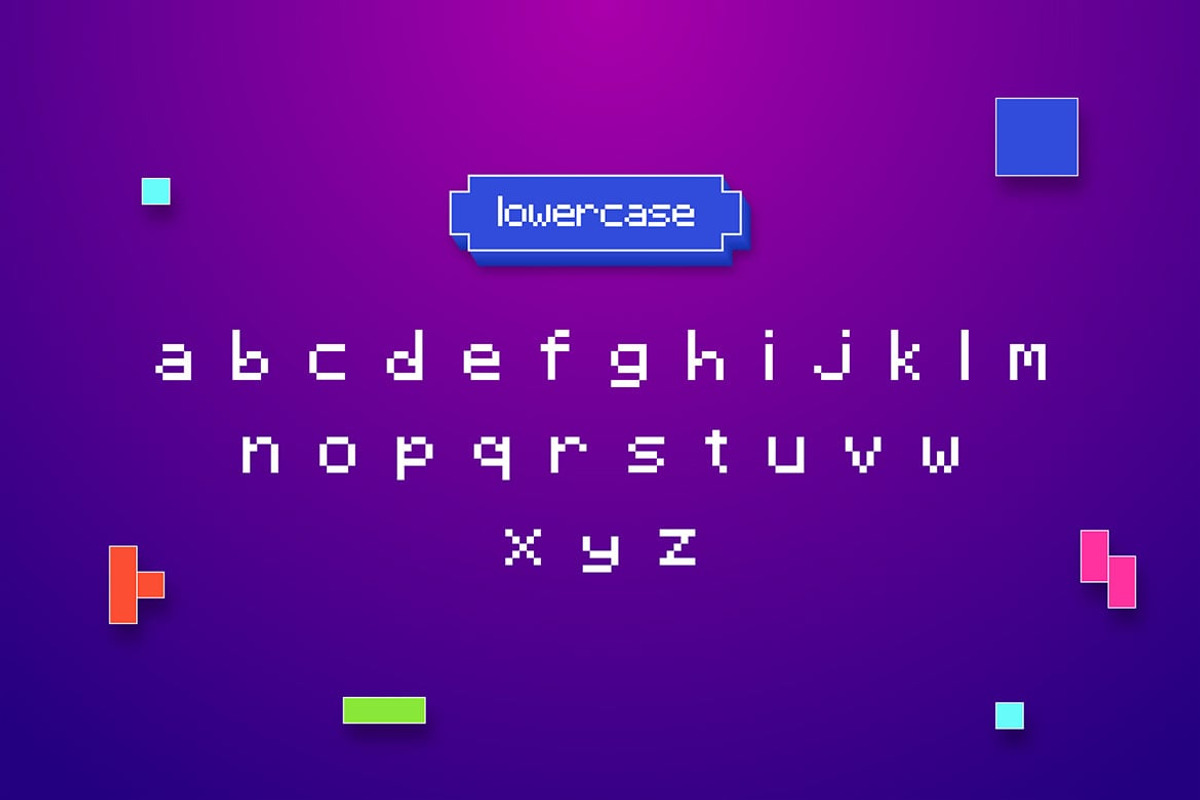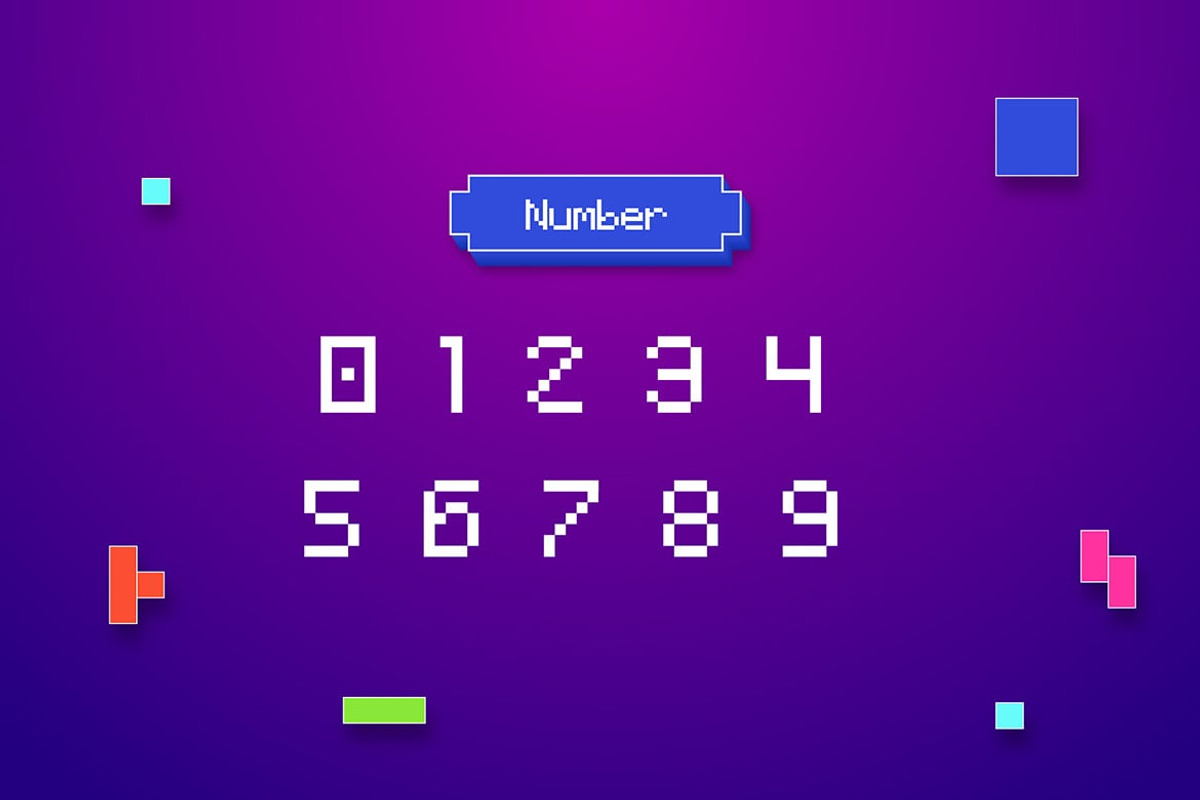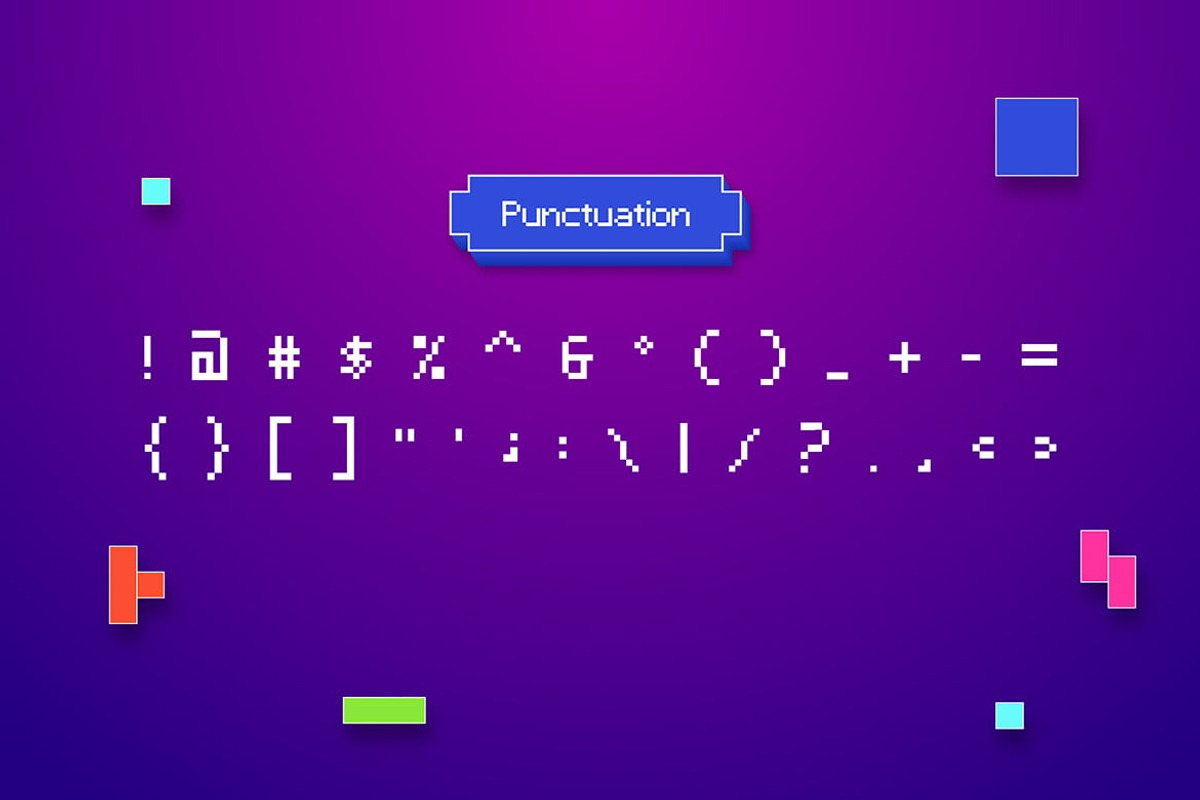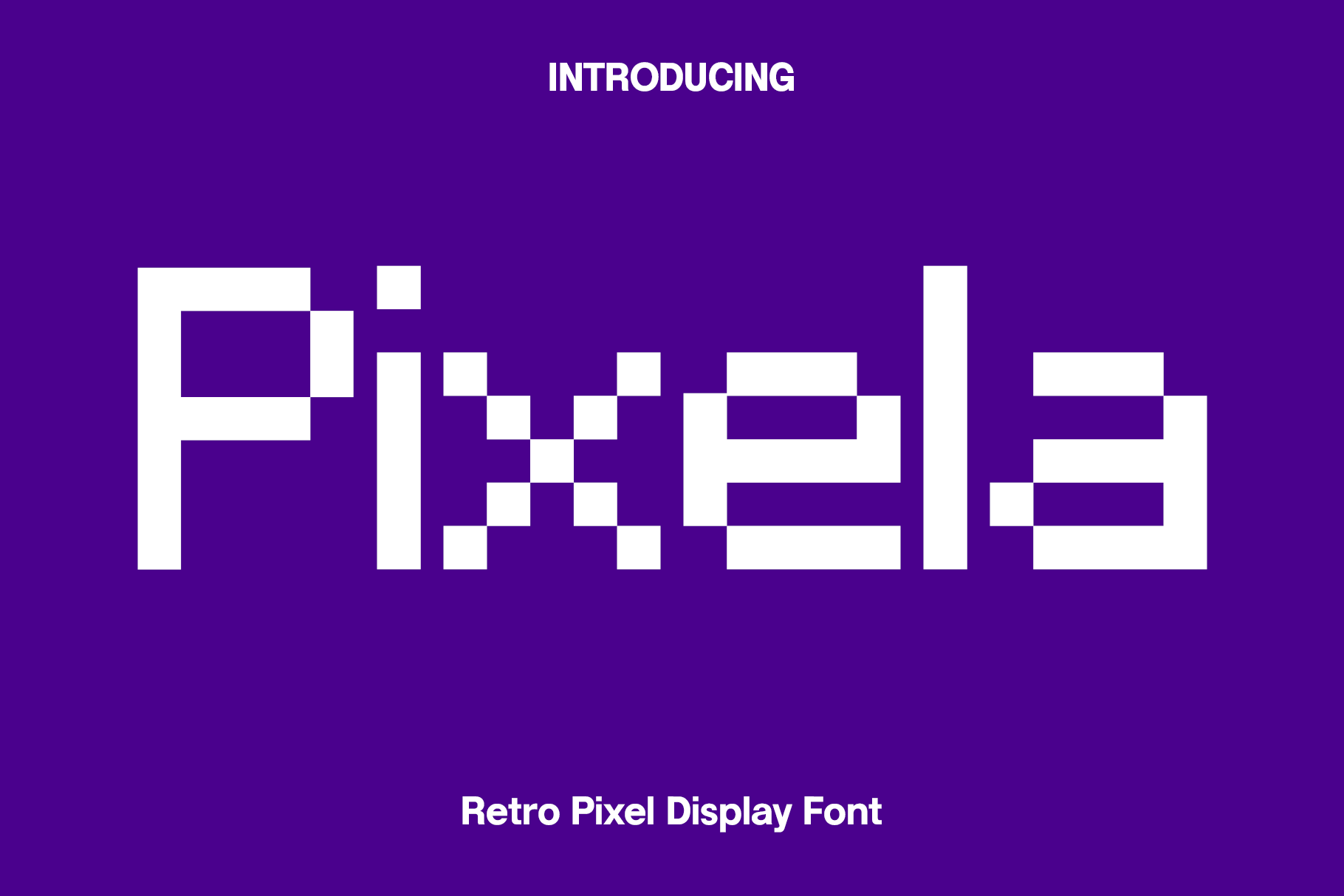
Pixela - Retro Pixel Display Font
Pixela – Retro Pixel Display Font
Pixela is a retro pixel display font inspired by the golden era of arcade games, classic consoles, and 8-bit digital graphics. Designed with crisp pixel-perfect letterforms, Pixela captures the nostalgic charm of vintage gaming while offering the clarity and versatility needed for modern creative projects. Every character is carefully crafted to recreate the authentic feel of retro computer screens, making it an excellent choice for designers who want to add nostalgic energy and timeless gaming aesthetics to their work.
Perfect for retro video games, pixel art, gaming logos, arcade branding, movie titles, posters, book covers, YouTube thumbnails, stream graphics, social media content, app interfaces, technology branding, headlines, merchandise, packaging, and creative digital projects, Pixela delivers a bold visual identity across both print and digital media. Its distinctive pixel structure instantly brings back the excitement of classic gaming while maintaining excellent readability.
Whether you're designing an indie game, creating nostalgic marketing materials, developing cyber-inspired branding, or producing vintage-inspired artwork, Pixela provides the flexibility and personality needed to make every design memorable. Its clean pixel construction blends classic retro aesthetics with modern functionality, making it suitable for a wide variety of creative applications.
With its authentic 8-bit style and premium craftsmanship, Pixela transforms ordinary typography into iconic retro visuals that celebrate the history of digital design. It is an essential display font for designers looking to create bold, nostalgic, and eye-catching projects with true pixel-perfect character.
Pixela Font Features: • Authentic retro pixel display style • Classic 8-bit inspired letterforms • Strong typography for gaming and digital projects • Uppercase and lowercase characters • Numbers and punctuation • Perfect for games, logos, posters, movie titles, book covers, headlines, technology branding, pixel art, packaging, and social media • Suitable for both print and digital projects • OTF and TTF file formats included